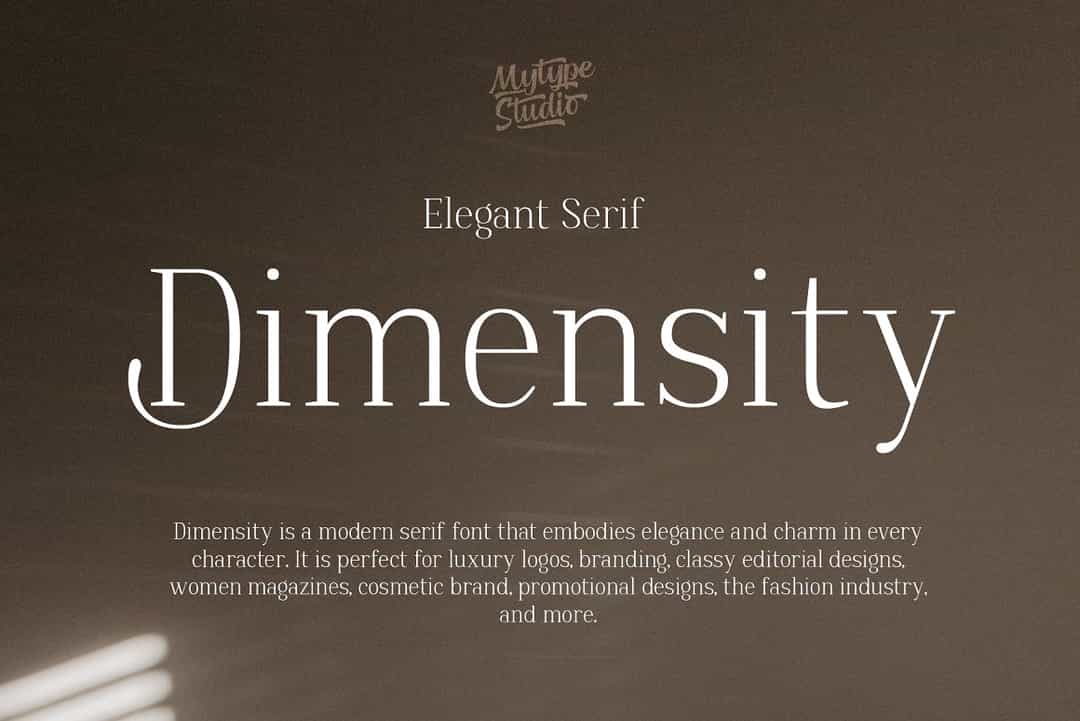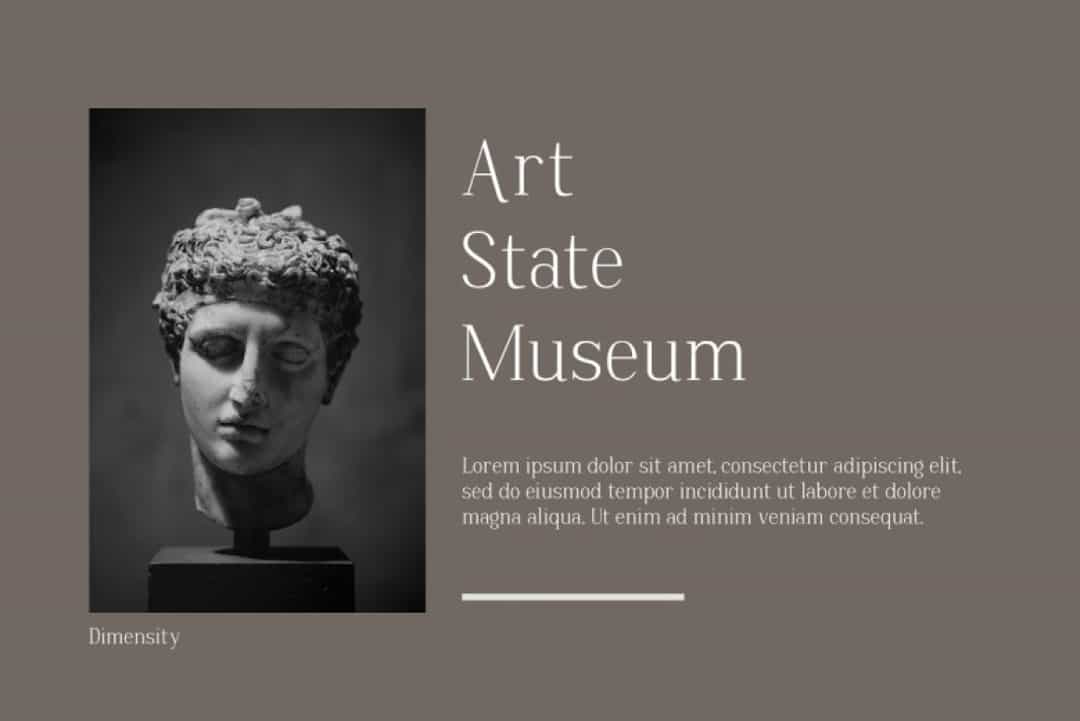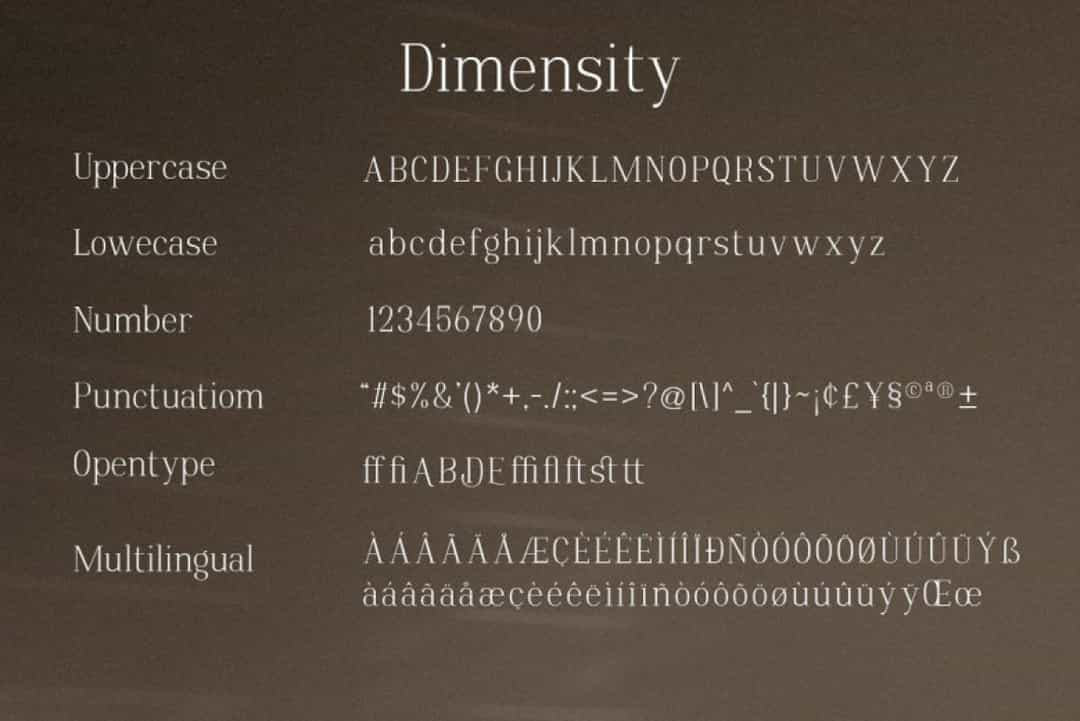
Dimensity is a modern serif font that embodies elegance and charm in every character. It is perfect for luxury logos, branding, classy editorial designs, women magazines, cosmetic brand, promotional designs, the fashion industry, and more.